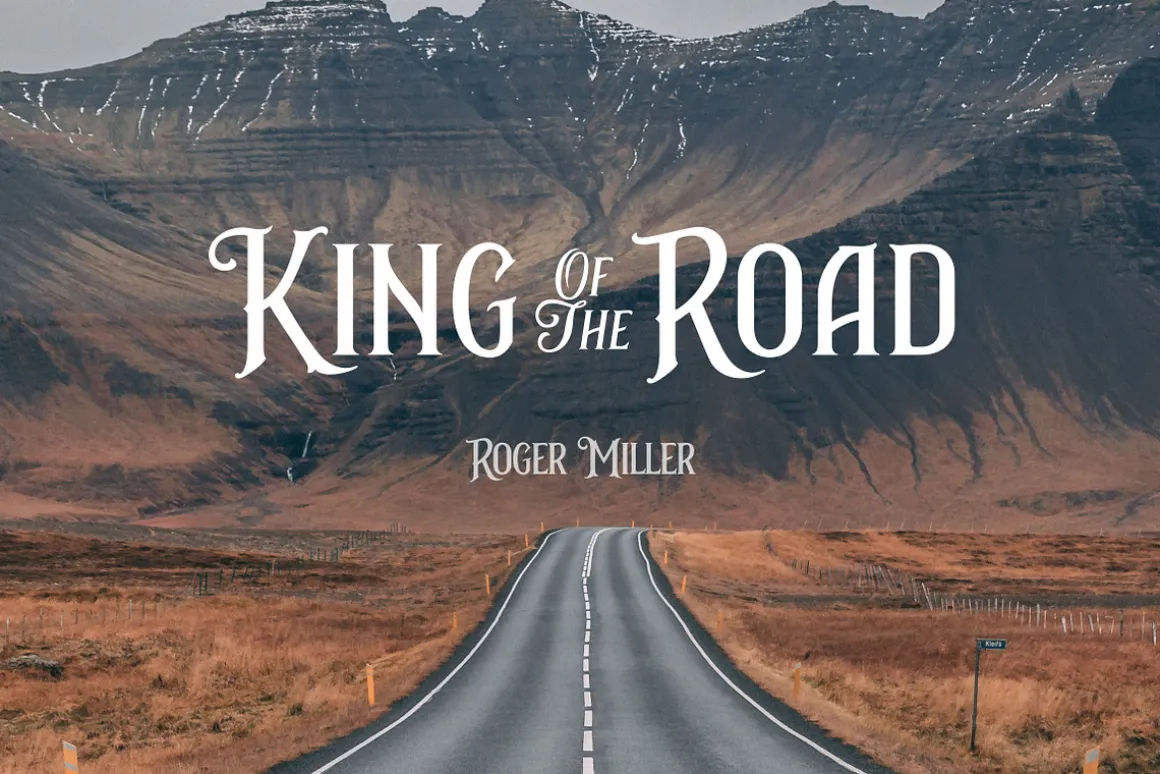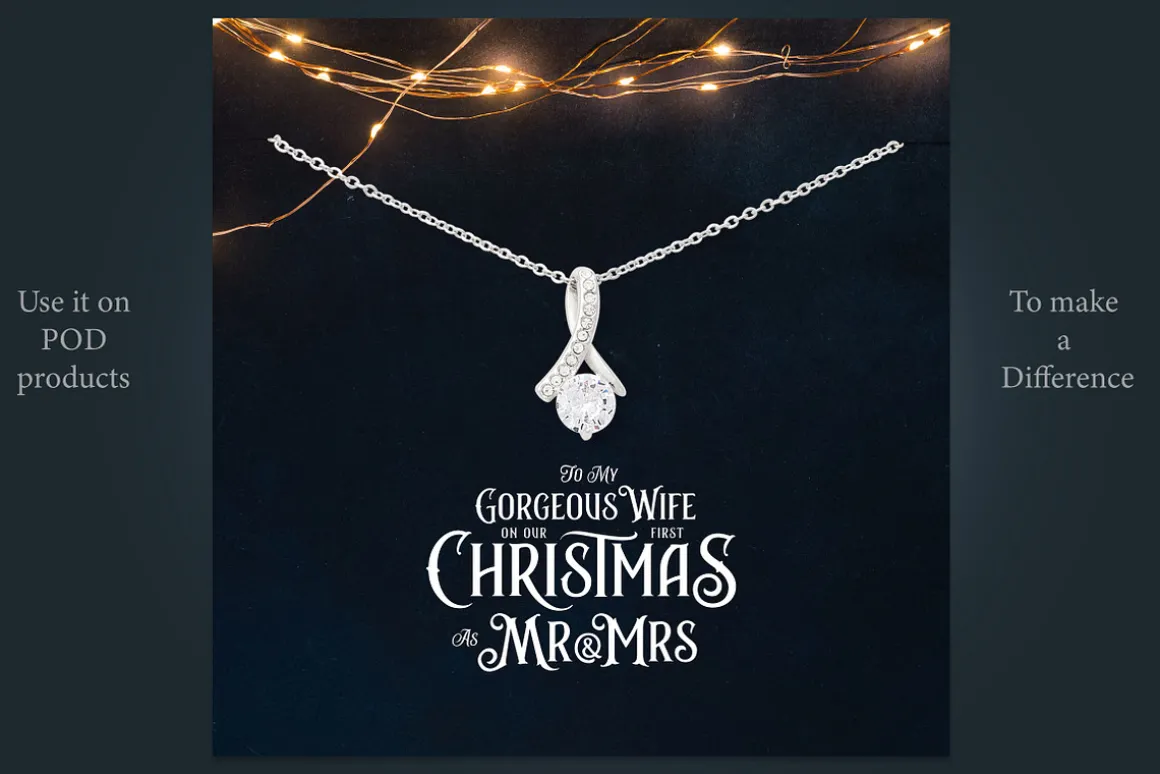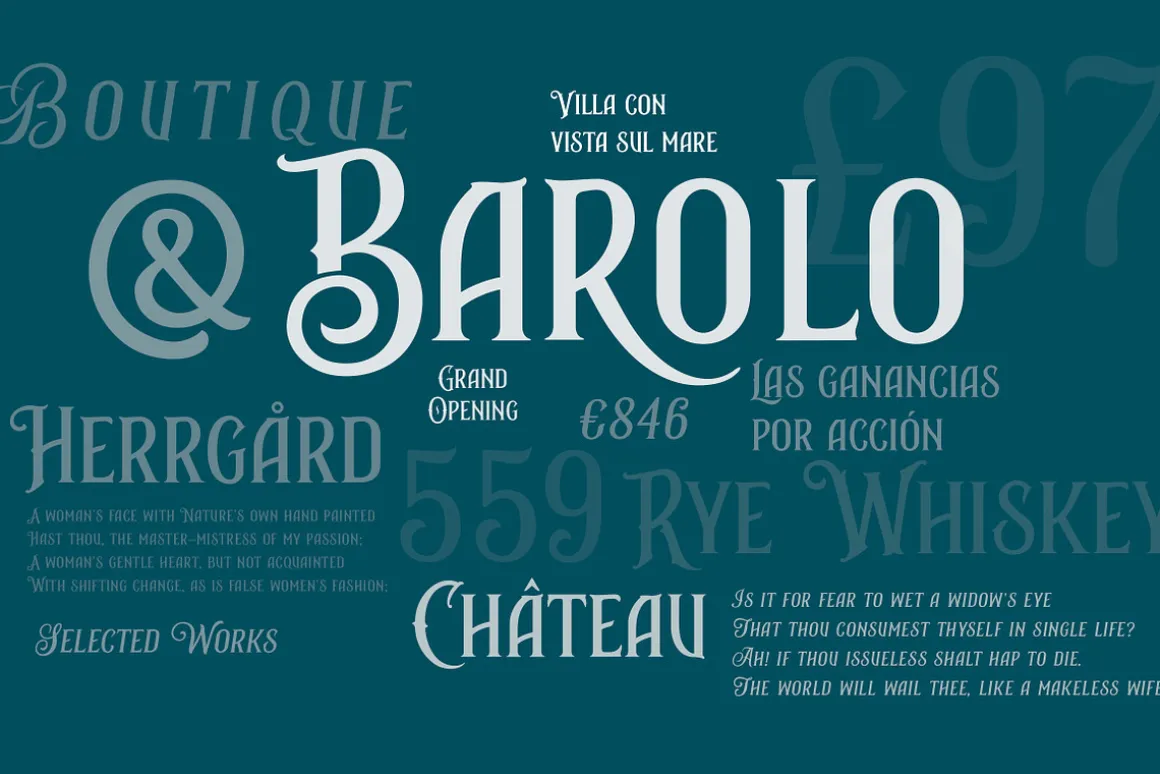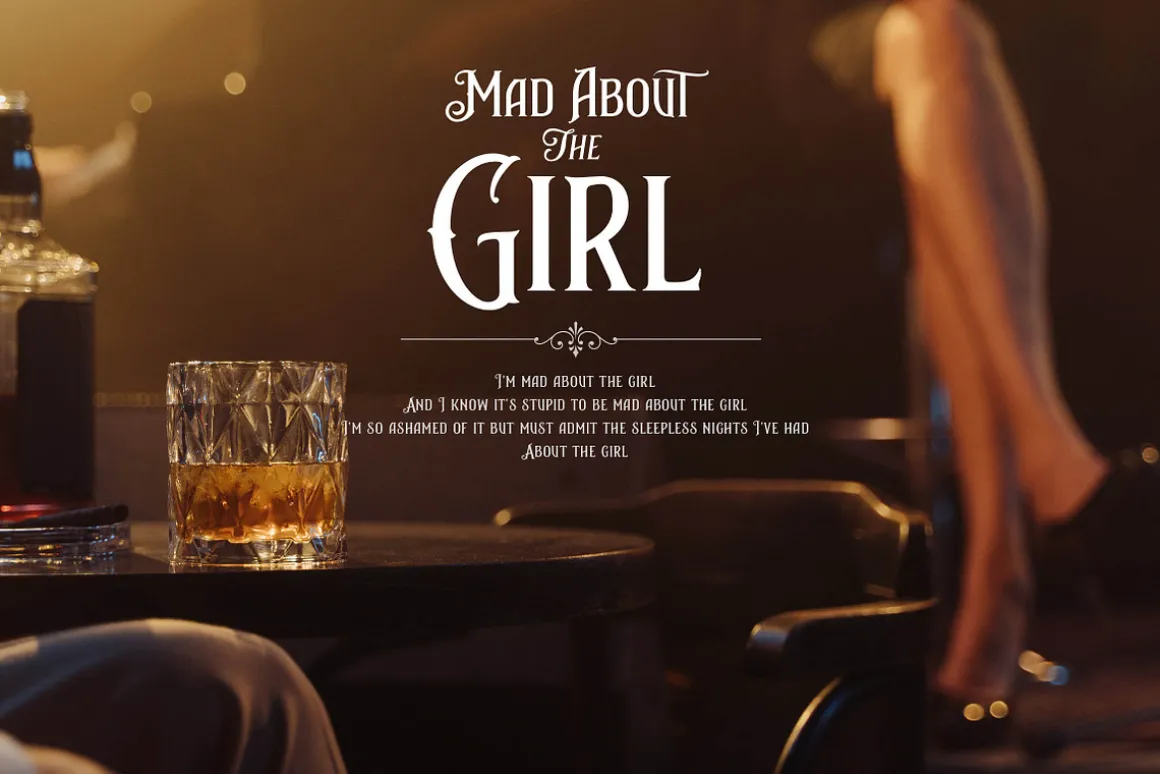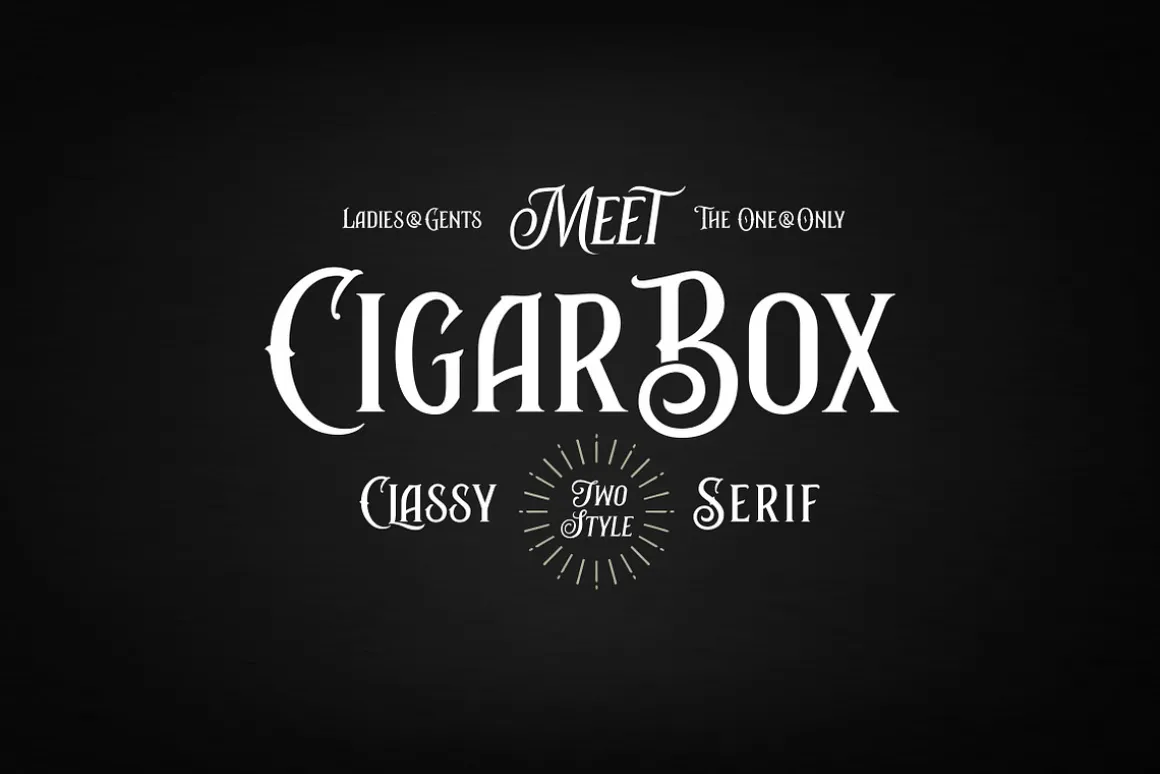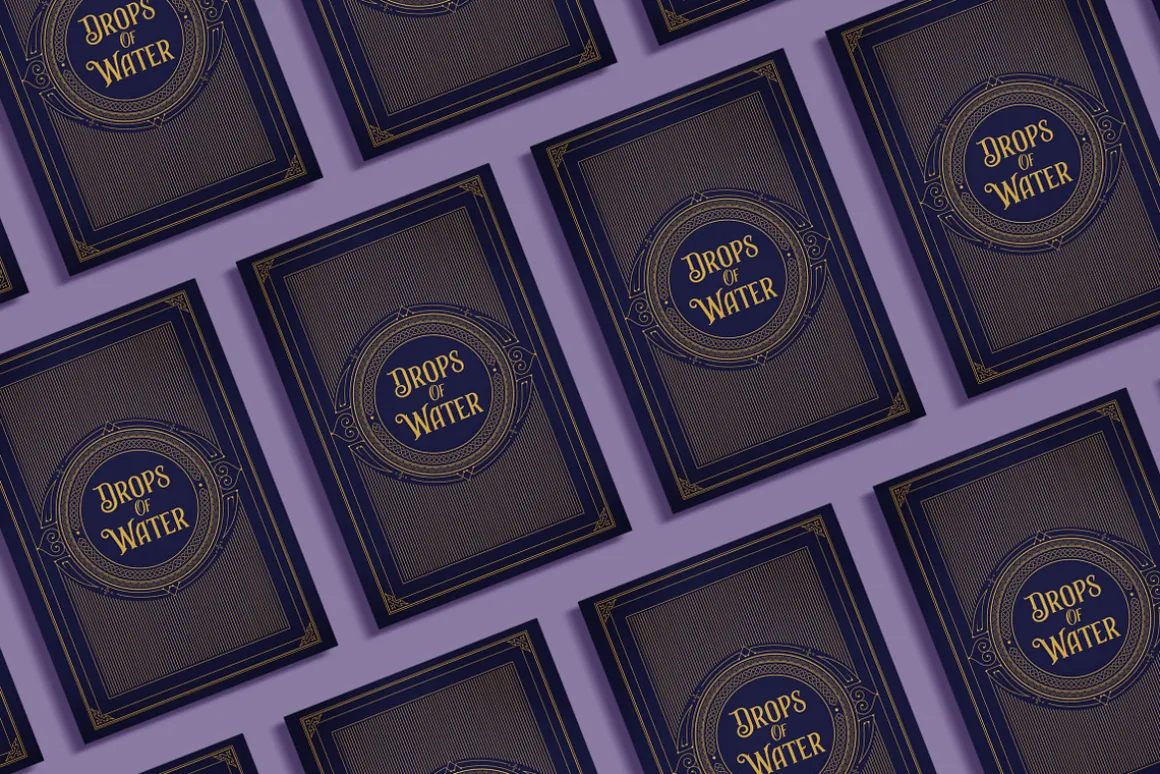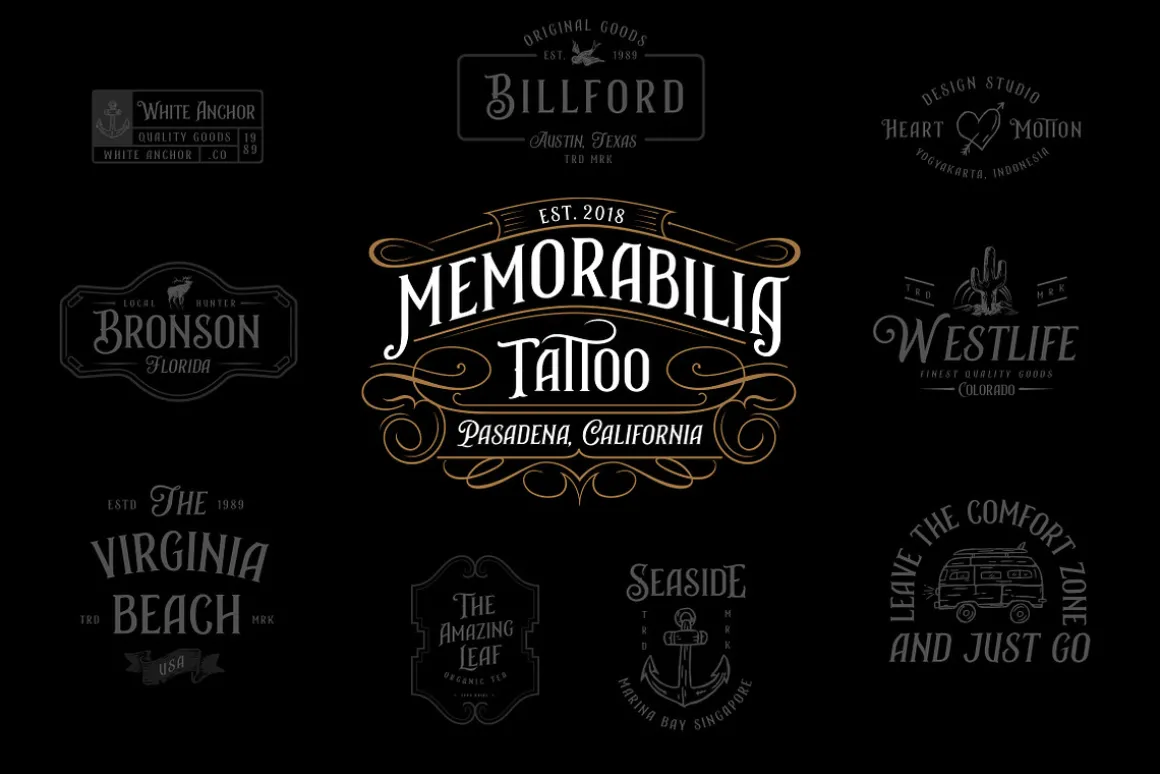
Vintage small caps serif font family of two styles (Regular and Italic). Well suited for the design of Victorian style headlines & book covers, quotes, labels for tobacco, whiskey, rum, tequila, confectionery. Great for designing t-shirts, posters, playing cards, etc. The capital letters in both variants are ornate and embellished.CigarBox includes a full set of Uppercase Basic Characters, Numerals, and Punctuation. Many letters have stylistic alternates to fit various design options.CigarBox supports Western European, Central European, and South-Eastern European Languages.You can check your language by typing characters in the text box below.